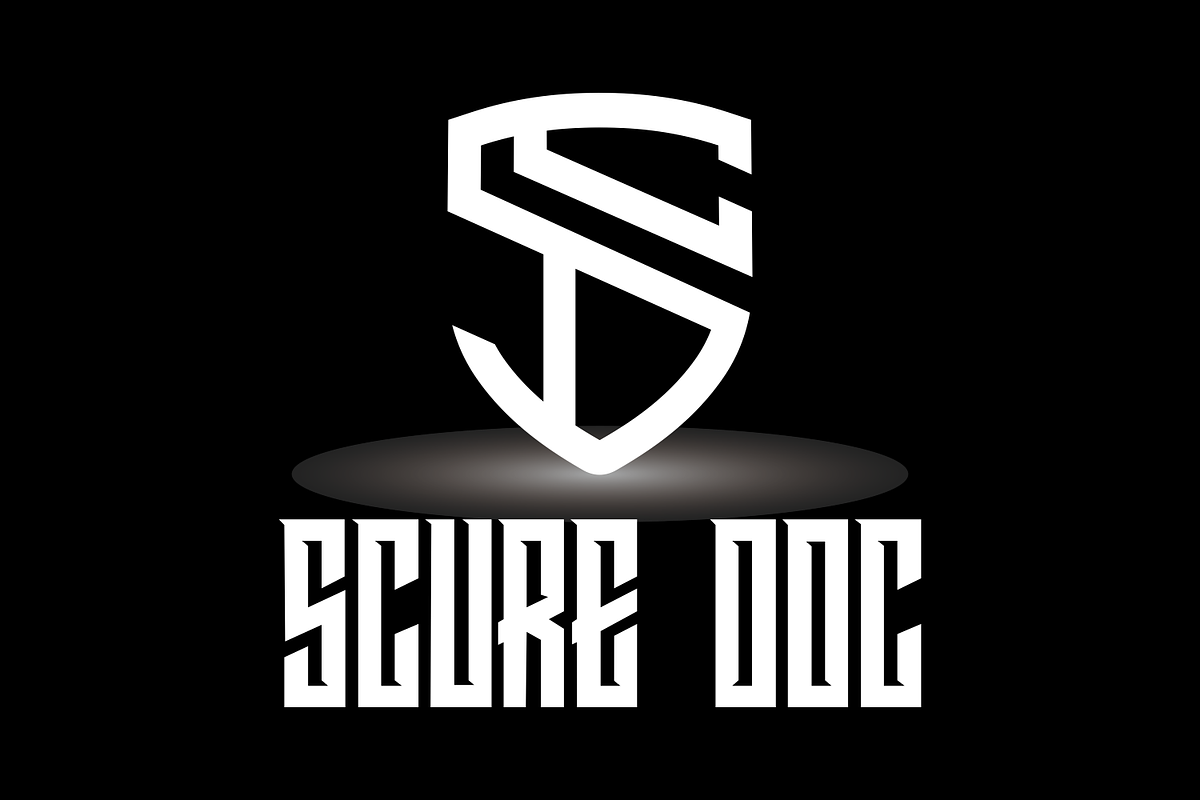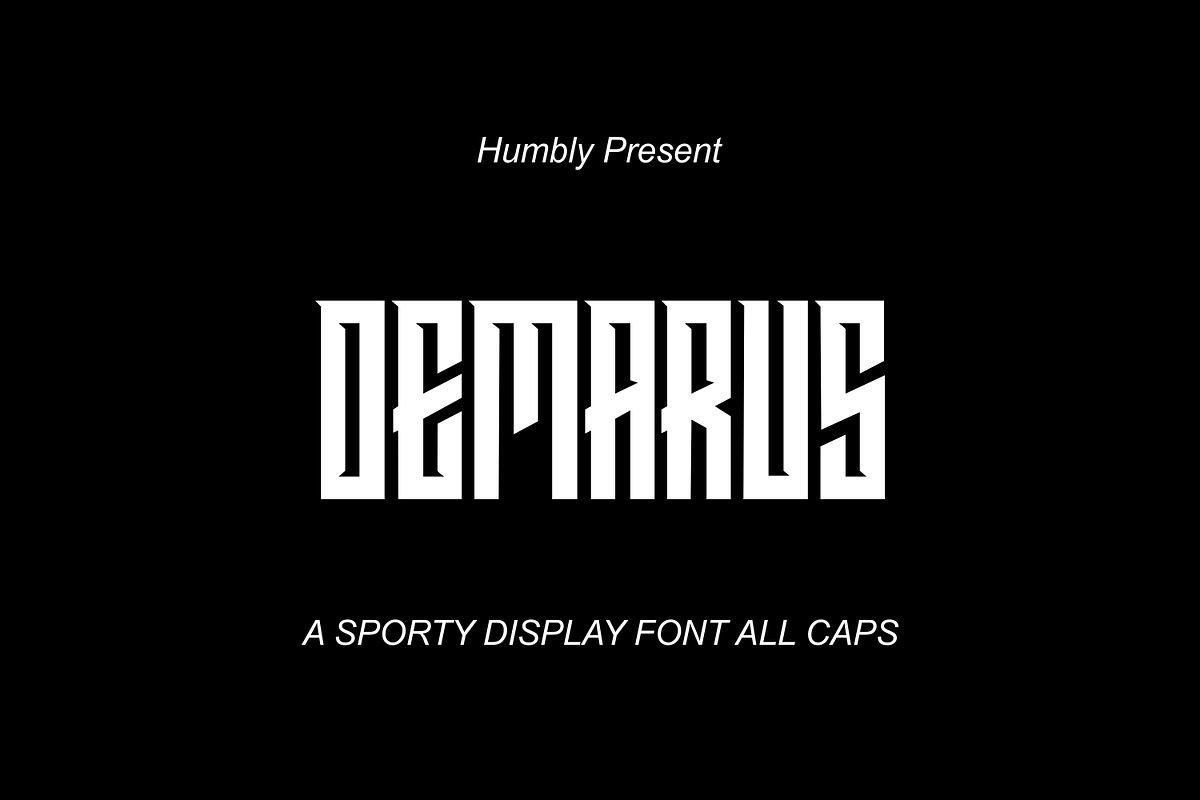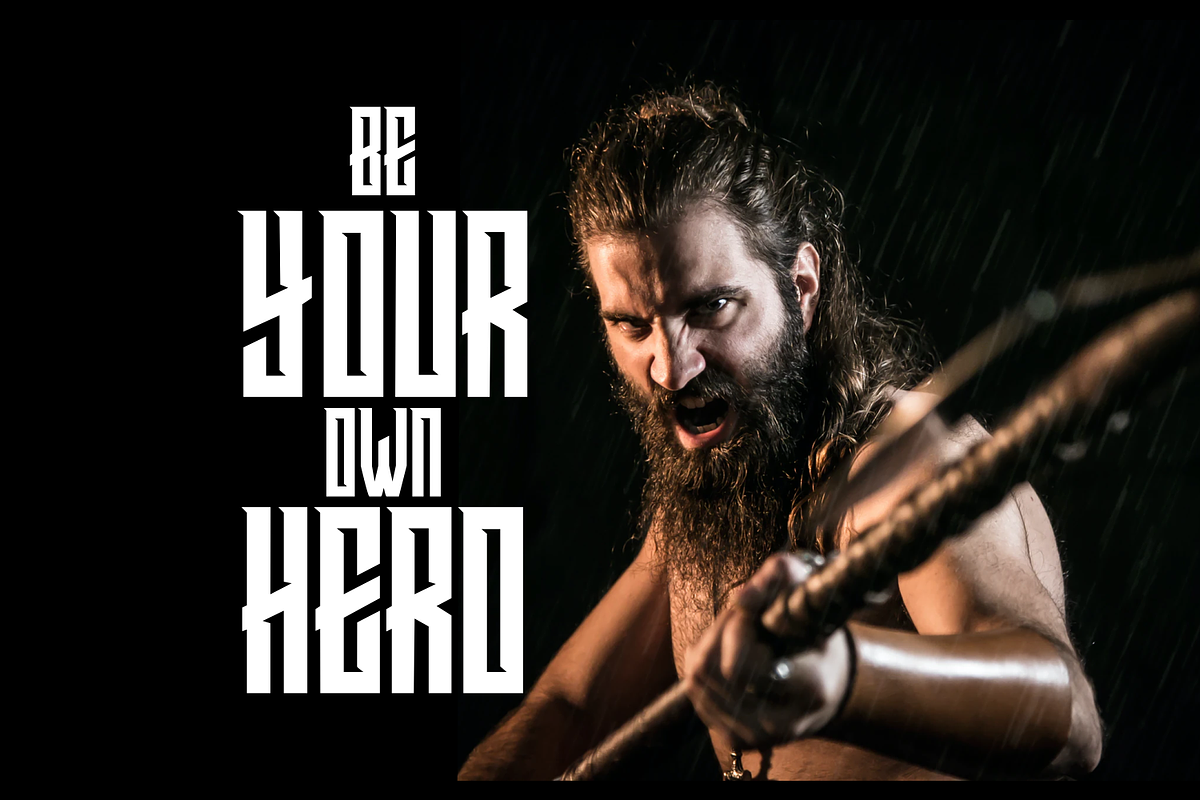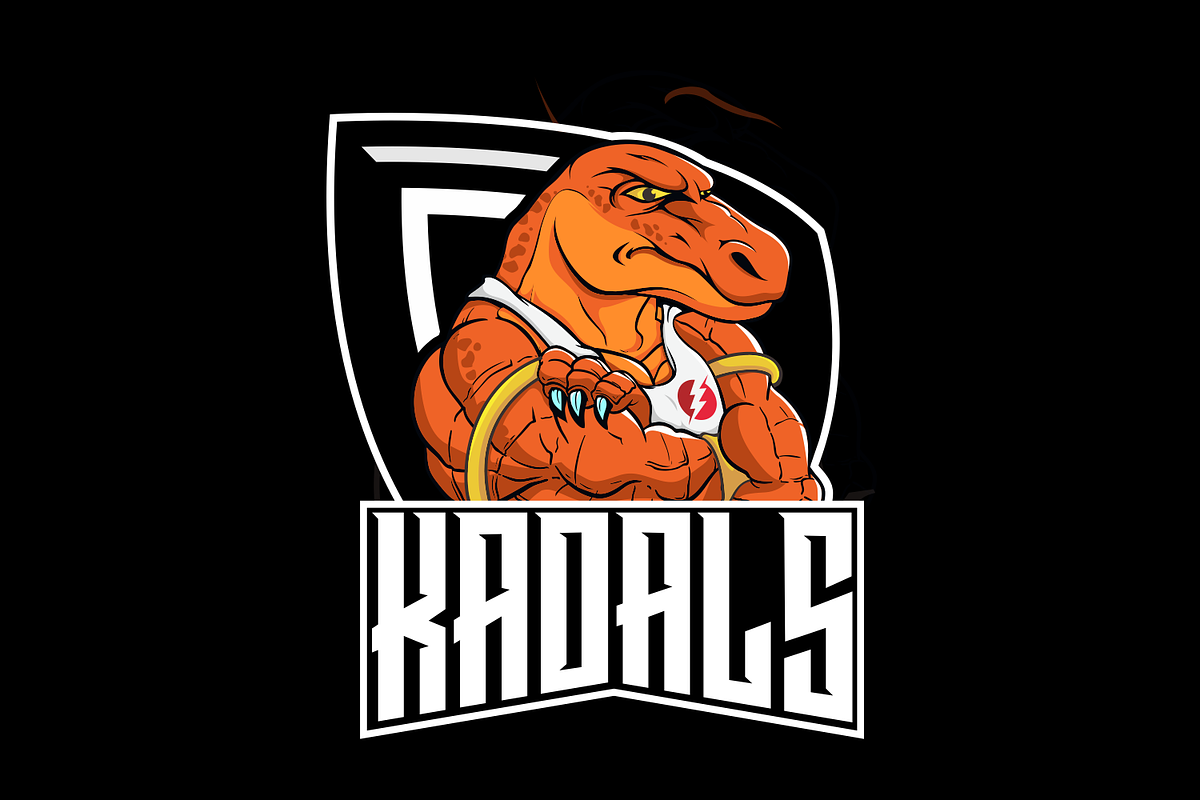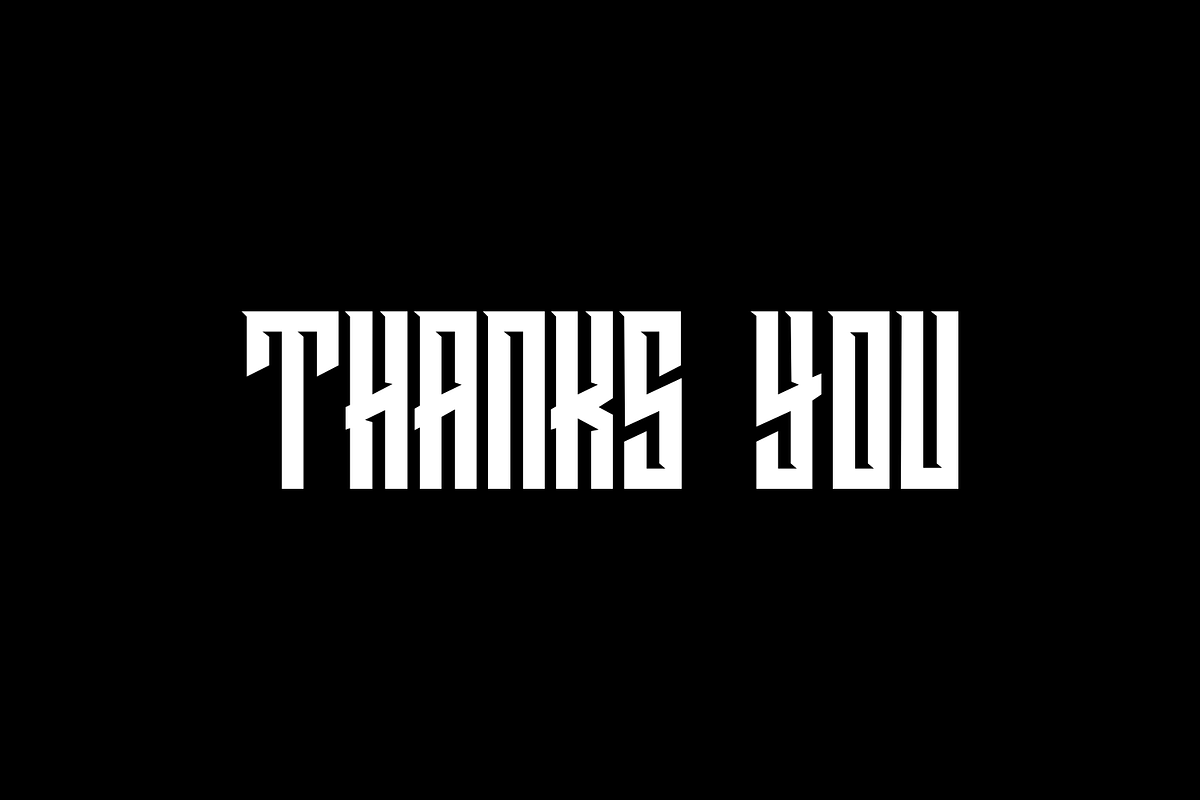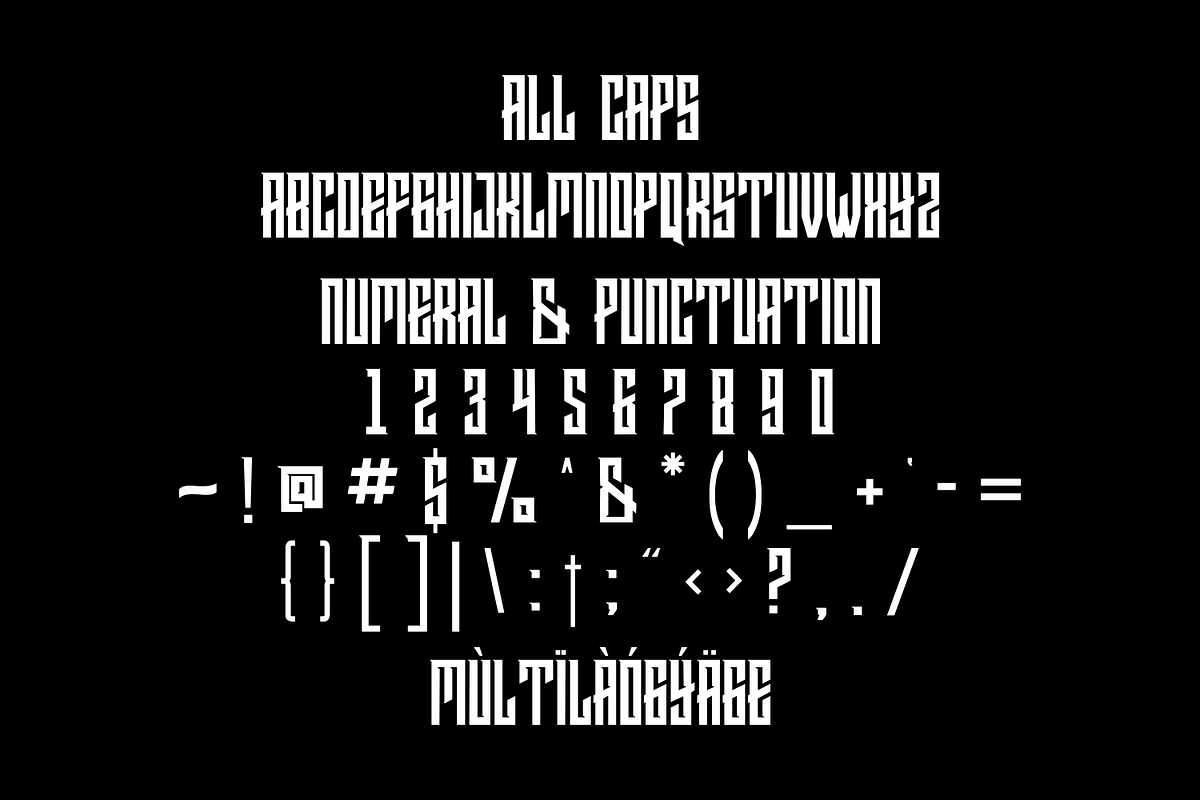
DEMARUS
DEMARUS originally designed for use in e-Sports related projects, logotype, quotes, wordmark, magazine, t shirt etc. The downloadable file contains the font in ttf, woff, font license. Includes: Uppercase Numbers Punctuation Symbols multilingual support PUA Encoded Characters TTF + OTF and WOFF Fully accessible without additional design software. To access alternative glyphs, you'll need a program that supports OpenType features such as Adobe Illustrator CS, Adobe Photoshop CC, Adobe Indesign, and Corel Draw.